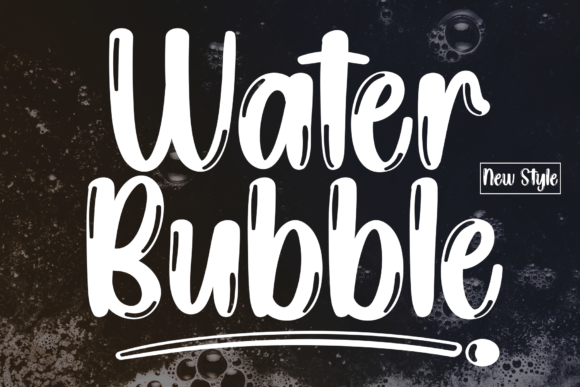
Introducing Water Bubble Font - the perfect choice for adding a splash of fun and excitement to any design project! Created by andikastudio, this cool and incredibly cute display font is sure to capture your heart with its playful charm.
With its bubbly and youthful vibe, Water Bubble Font is the ideal companion for all your party invitation needs. Whether you're planning a birthday bash, a baby shower, or any other celebration, this font will infuse your invitations with a captivating and joyful energy that will instantly grab the attention of your guests.
But the magic of Water Bubble Font doesn't stop there. Imagine using this font for a swimming gathering invitation. Its whimsical curves and lively aura will evoke a sense of excitement and anticipation, setting the tone for a splashing good time. Your invitees won't be able to resist the temptation of diving into the festivities!
Not only does Water Bubble Font bring a sense of youth and joy to your designs, but it also adds a touch of creativity and uniqueness. Whether you're working on a logo, a poster, or even a social media graphic, this font will make your text stand out from the crowd. Its eye-catching appearance will mesmerize viewers and leave a lasting impression.